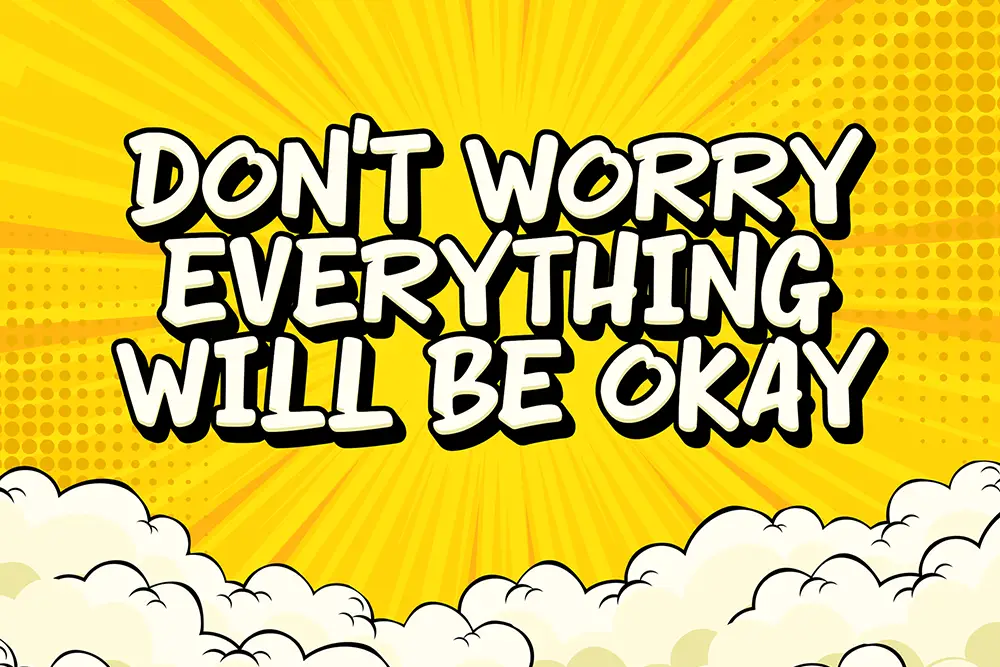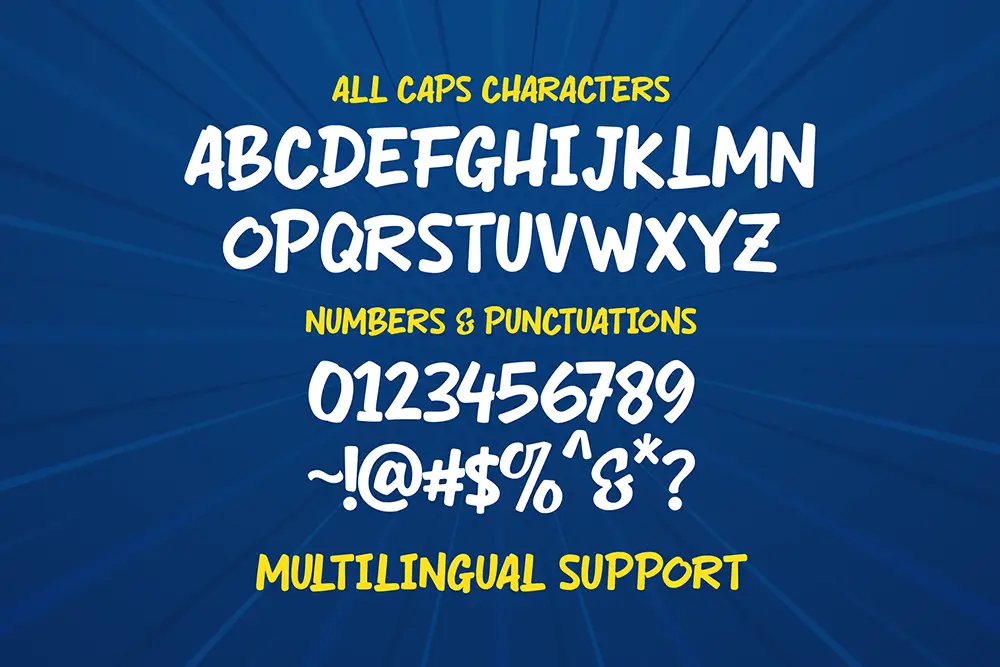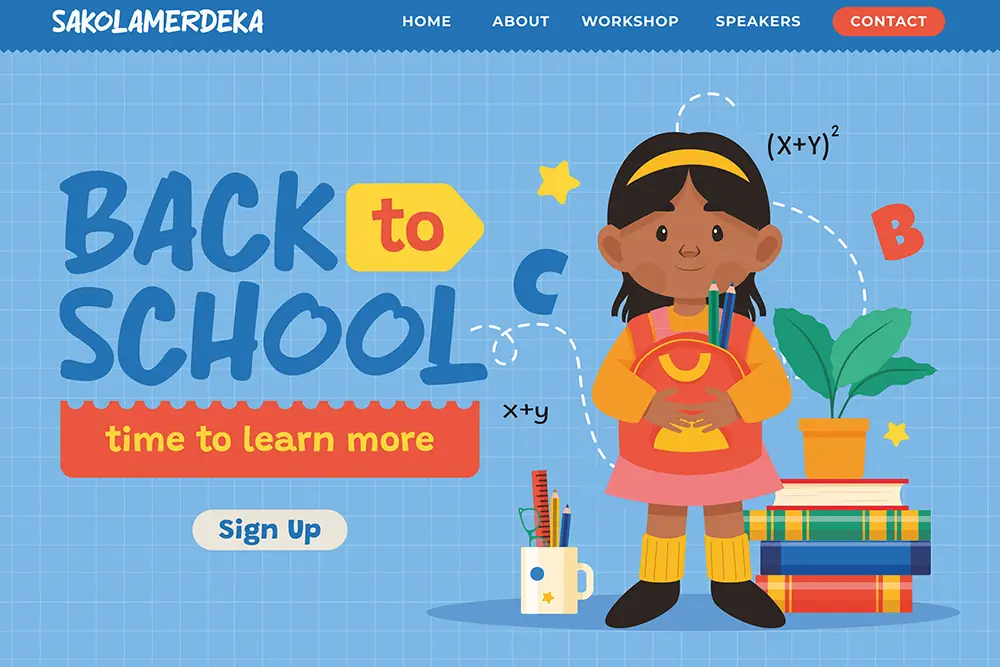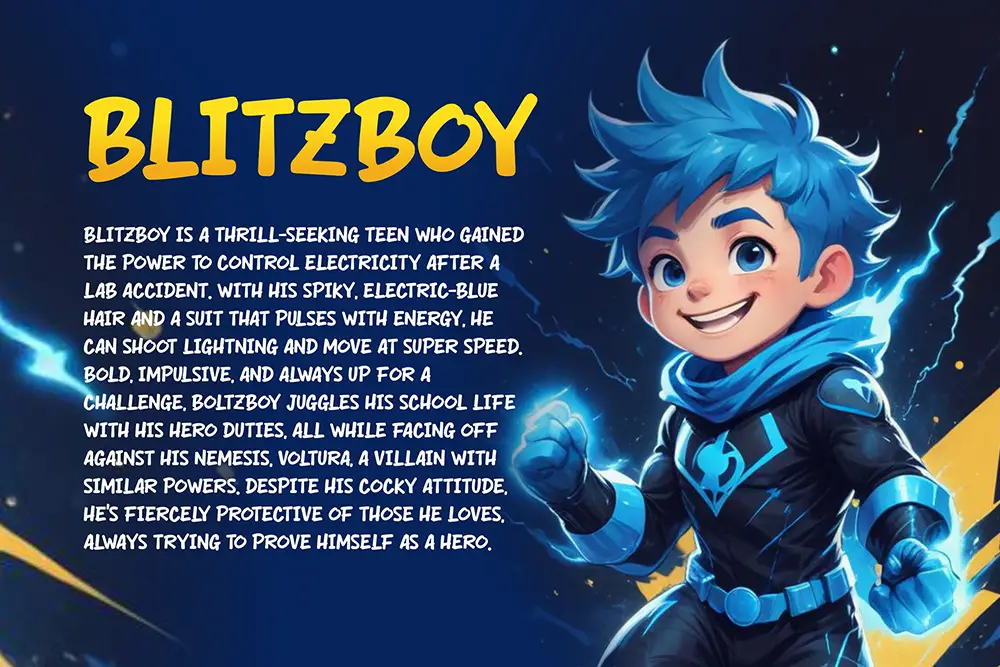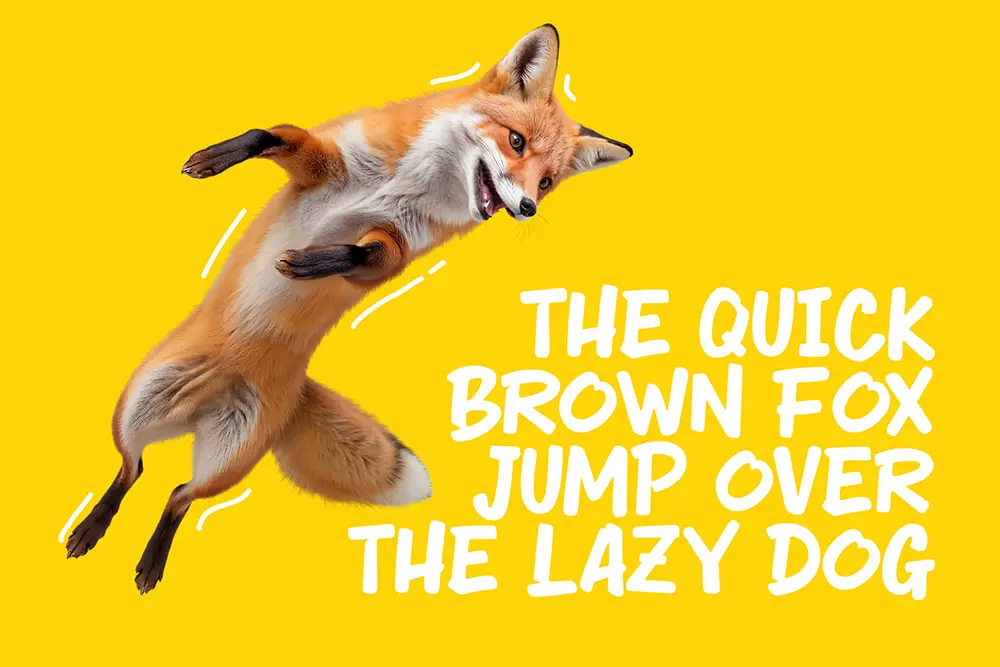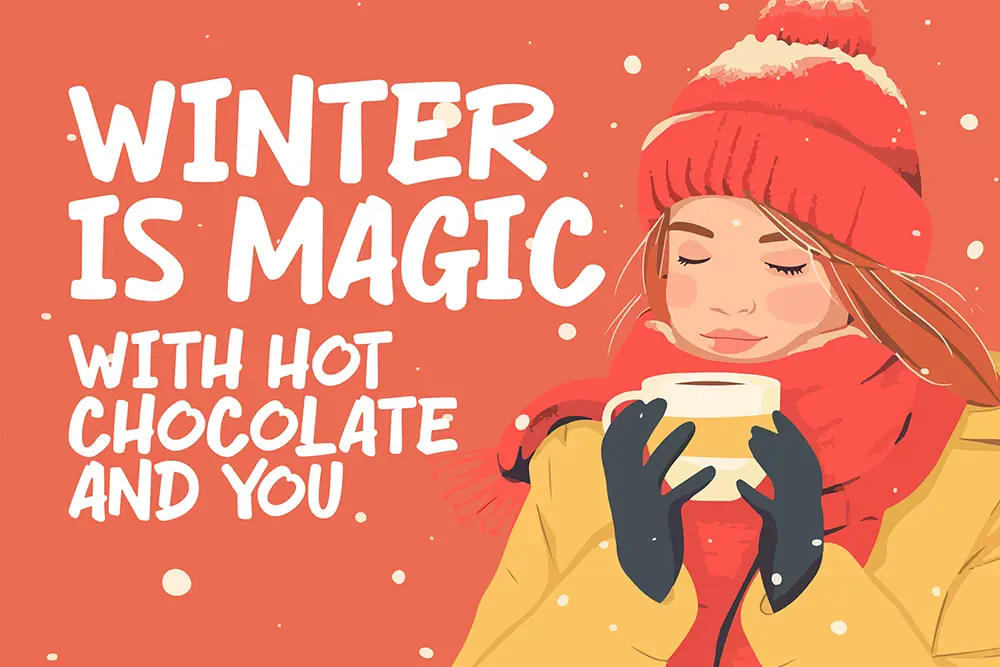
A Playful Comic Marker Font for Kids Designs and Creative Branding
Say hello to Spark Boys, a playful comic marker font that radiates energy, imagination, and bold creativity. Designed in a fun all-caps style, this typeface instantly brings life to your layout—whether you’re working on kids’ projects, poster designs, or crafting eye-catching YouTube covers. With every stroke resembling hand-drawn marker lines, Spark Boys makes sure your message pops with personality.
In the world of fun display fonts, Spark Boys stands out with its allcaps structure and expressive comic vibes. This font captures the essence of hand-drawn lettering often seen in playful cartoons, school activities, or youth-centered designs. It’s your go-to font for everything bold, cheerful, and creative.
✦ Key Features:
- Allcaps Characters: Playfully uniform for impactful headlines and consistent tone.
- Comic Marker Style: Mimics real marker strokes—authentic and expressive.
- Multilingual Support: Covers multiple Latin-based languages for global use.
- Perfect for Various Projects: Ideal for children’s books, classroom posters, product packaging, YouTube visuals, and fun branding.
✦ Why Designers Love Spark Boys
Designers love Spark Boys because it’s fun without being messy, bold without being aggressive, and above all—super versatile. Whether it’s a DIY label project or a commercial cartoon banner, Spark Boys brings out the best in playful design. Its simplicity and energy make it accessible for both seasoned creatives and beginners alike.
The comic marker aesthetic appeals especially to creators making content for kids, family brands, or playful events. Unlike rigid sans-serifs or overly complex display fonts, Spark Boys offers a clean but energetic vibe that instantly draws attention. Plus, it pairs well with casual scripts and bubbly sans fonts, giving you design freedom across multiple mediums.
✦ Ideal Use Cases
- Kids’ educational materials
- Birthday invitation cards
- Comic book designs
- DIY crafts and stickers
- Product packaging for toys
- School projects and posters
- YouTube thumbnails
- Coloring book covers
- Event branding
- Quote and greeting card designs
If you’re looking for a comic marker font, a fun playful font for kids, or an allcaps bold typeface for your next cheerful design, Spark Boys delivers the perfect punch. As a playful comic font with multilingual support and intuitive flow, it’s ready for your most creative ideas. Its inclusion of multiple formats (OTF, TTF, WOFF) ensures you’re never limited by platform.
✦ Final Thoughts
Spark Boys isn’t just a font—it’s a creative tool. It brings joy to your canvas, turning basic text into artwork that speaks with warmth and fun. Whether you’re designing for kids, families, or just aiming for that quirky edge, Spark Boys brings your layout to life with confidence and flair.
For those who value authentic comic marker fonts that feel hand-drawn yet polished, this one’s a must-have in your type arsenal. Try Spark Boys today and elevate your design game with handmade charm and comic precision.